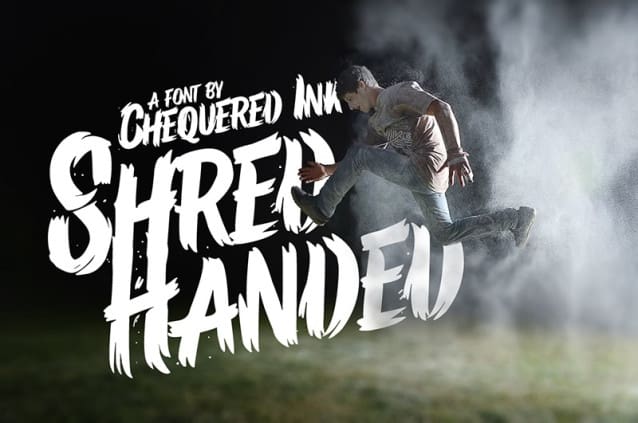
Shred Handed Font
Shred Handed Font is a casual display font, created by using a brush pen. Clean and a little bit quirky, this font is the perfect fit for all of your logos, branding, social media, and crafty DIY projects.